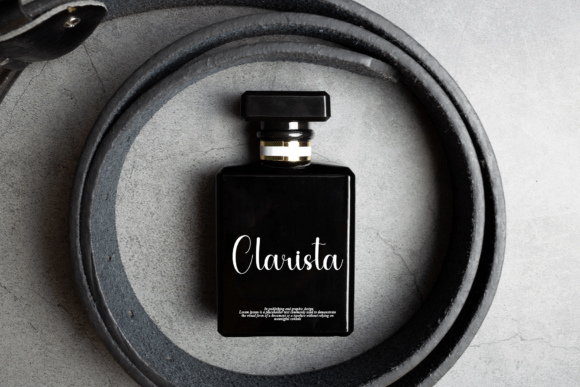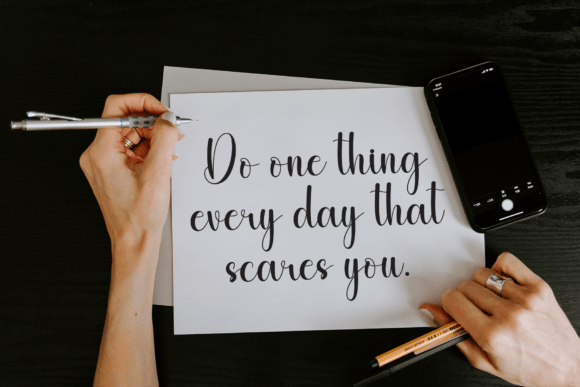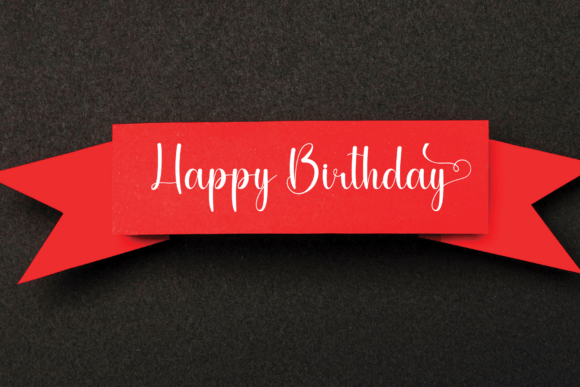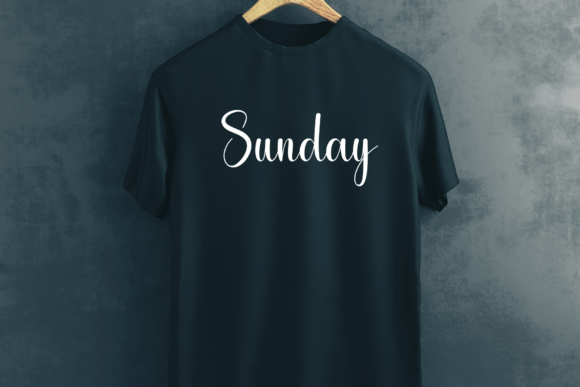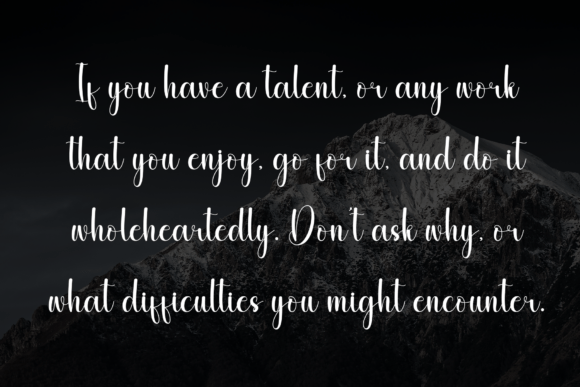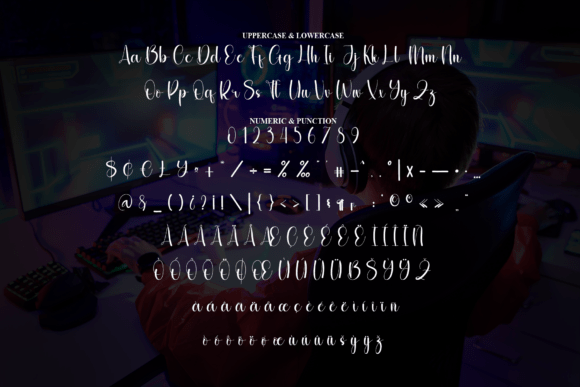
Introducing the Whimsical Gaming Font: Adding a Touch of Whimsy to Your Designs
Welcome to the charming world of our whimsically handwritten display font—a beautiful blend of warm friendliness and sugary charm. This beguiling typeface has been intricately fashioned to breathe vivacity into your designs, bringing a jovial flair to your creative projects. Its playful aesthetic effervescently metamorphoses event invites, greeting cards or any creative pursuit needing a sprinkling of merriment into a touching artwork.
As a designer or crafter, you’re always on the lookout for the perfect font to add a unique touch to your projects. Our whimsical gaming font is the perfect solution. Its playful and whimsical design makes it ideal for a variety of creative pursuits, from event invitations to greeting cards, and even social media graphics. With this font, you can add a dash of personality to your designs and make them stand out from the crowd.
What Makes Our Gaming Font So Special?
Our gaming font is more than just a collection of letters—it’s an untapped treasure trove of creativity, eagerly awaiting your exploration. Here are just a few features that make it so special:
- Whimsical Design: Our font features a unique, handwritten design that’s full of character and personality.
- Playful Aesthetic: The font’s playful aesthetic is perfect for adding a touch of whimsy to your designs.
- Versatile: Our font is versatile and can be used for a variety of creative pursuits, from event invitations to greeting cards, and even social media graphics.
In conclusion, our whimsical gaming font is the perfect addition to your design toolkit. Its playful and whimsical design makes it ideal for a variety of creative pursuits, from event invitations to greeting cards, and even social media graphics. With its unique features, versatility, and ease of use, our font is sure to inspire creativity and help you create unique and eye-catching designs. So why wait? Download our gaming font today and start adding a touch of whimsy to your designs!